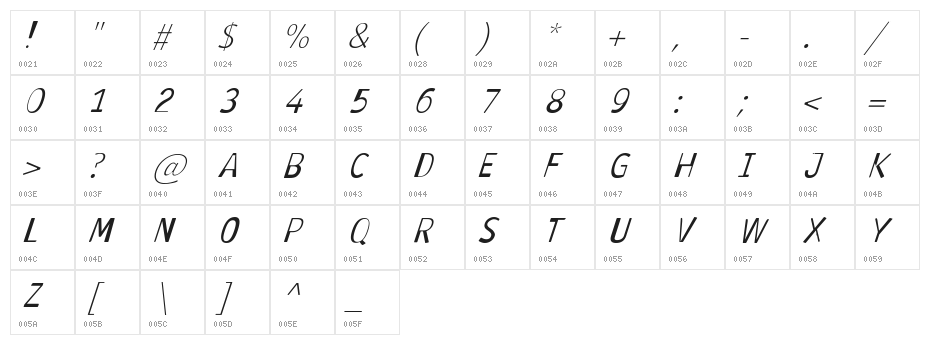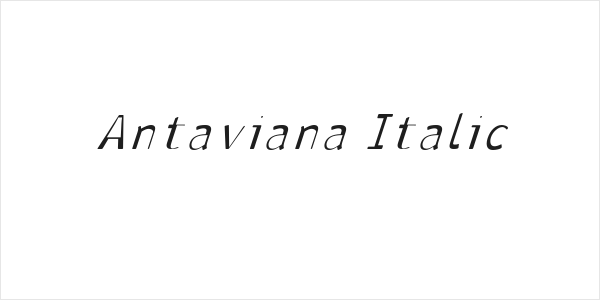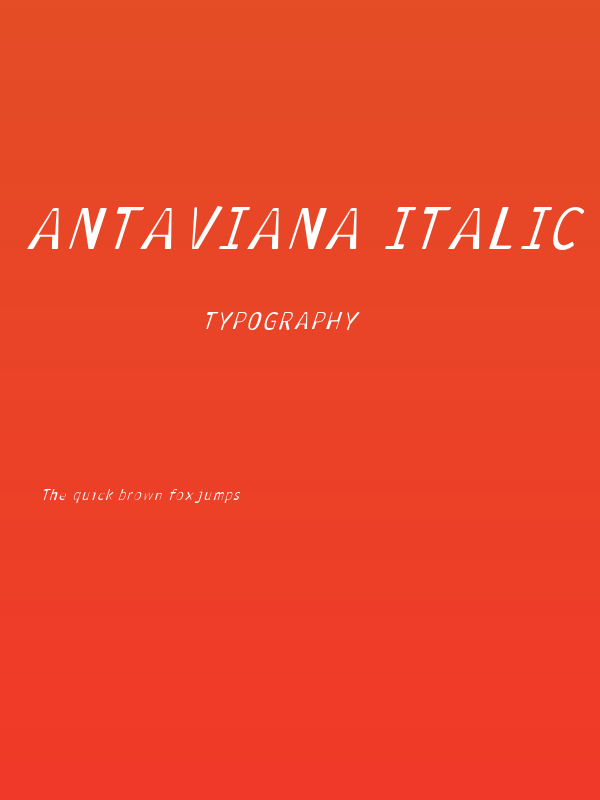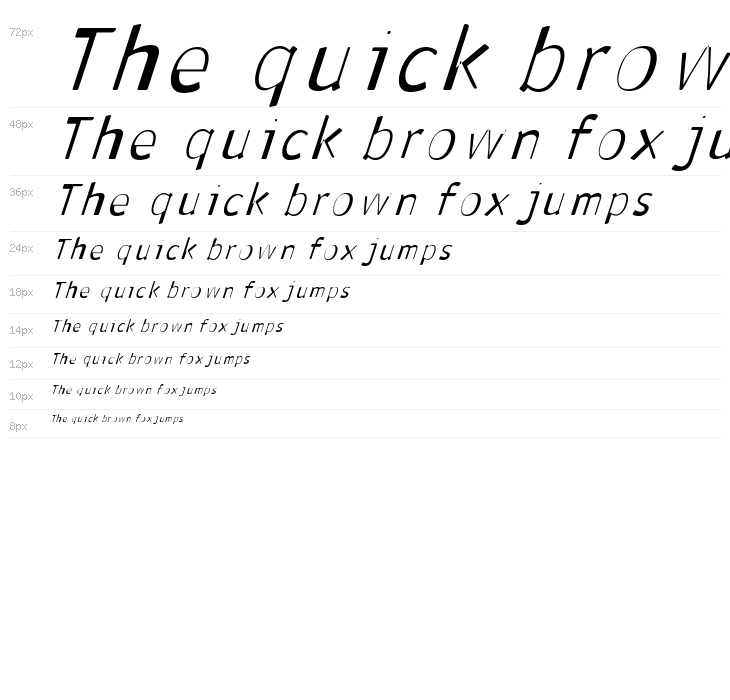
Antaviana Italic Font
Antaviana Italic Description
This font features a sleek, italicized style with a modern touch. The characters are slightly slanted, giving a sense of motion and elegance. The strokes are smooth and consistent, with a medium contrast between thick and thin lines. The uppercase letters are tall and commanding, while the lowercase letters maintain a harmonious balance. Numbers are clear and legible, making them suitable for various applications. Special characters are well-designed, ensuring versatility in usage. Overall, this font exudes a contemporary and stylish vibe, perfect for creative projects.
| Use Case | Headlines, Logos, Creative design |
| Proposed Projects | Ideal for branding, advertising, fashion magazines, and creative design projects. |